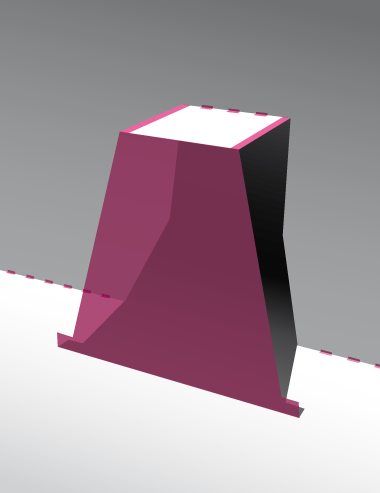
Haha, awesome... I wanted to do the exact same thing right after publishing Punched Out, but then saved it for later to not throw out all the folding ideas at the same time. As always a bad idea; I should have known somebody will come up with that idea sooner or later. I'm very glad it's you though, that makes sure it's an amazing execution with a super stylish typeface that really fits the concept. ;)
Cutting and folding the letters for sure reminded me when I built the E from your Punched Out set.
Anyway I'm curious about your kirigami font, even if the concept behind may be similar, the design for sure is different. I hope you decide to share it sooner or later!
Below is an diagram showing how to cut and fold the printed letters to get the kirigami text.
Stunning samples, also on your blog!
Cutting and folding the letters for sure reminded me when I built the E from your Punched Out set.
Anyway I'm curious about your kirigami font, even if the concept behind may be similar, the design for sure is different. I hope you decide to share it sooner or later!